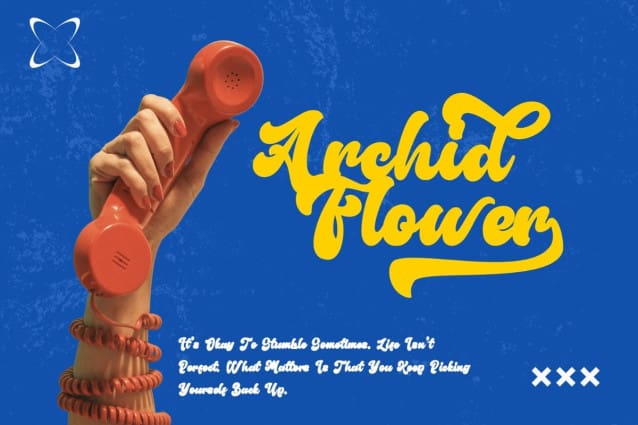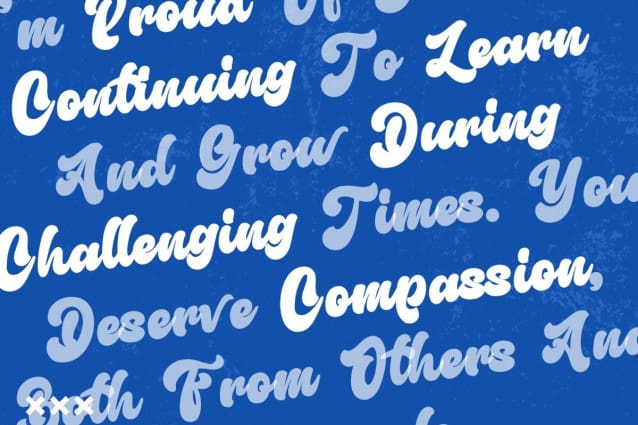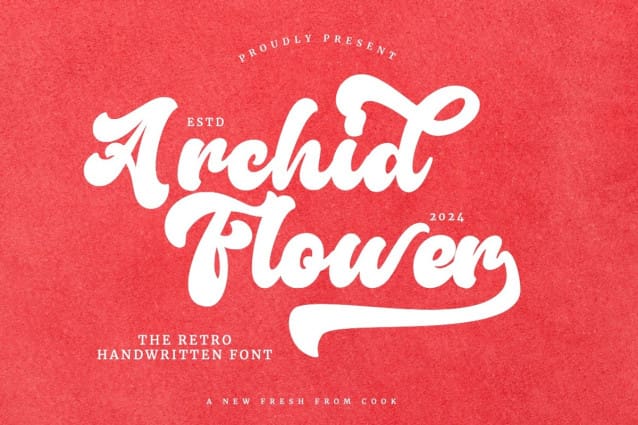
Archid Flower Font
Archid Flower Font is a hand-drawn, retro script font. This font is perfect for all your fun designs! Use ArchidFlower to create logos, branding, stickers, shirts, signs, posters, quotes, instagram posts, procreation designs and more!